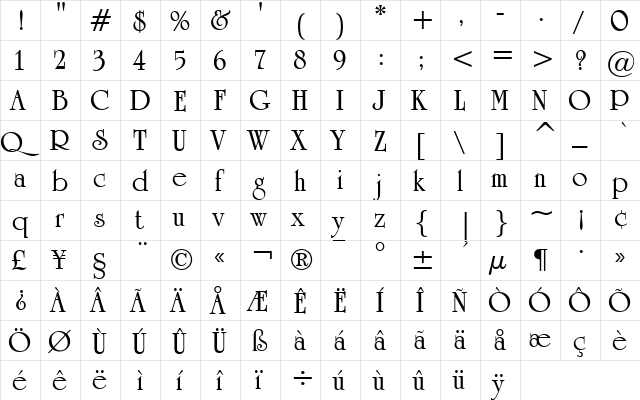
Ayar TawThaLin Light
| Foundry | Ayar Unicode Group |
| Designer | Ayar Unicode Group |
Design Context for Ayar TawThaLin Typeface
Ayar TawThaLin is a composed and adaptable typeface that performs quietly and consistently across a wide range of design contexts. The delicate stroke weight brings airiness and refinement to layouts.